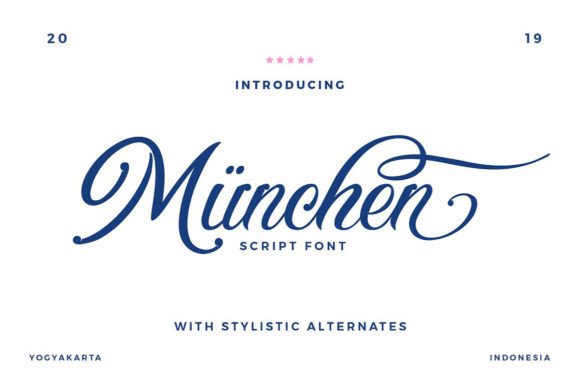
Journey into the world of elegance and sophistication with Munchen Font, the script font designed to captivate and inspire. Its delicate strokes and graceful lines create a timeless beauty that will elevate your designs to new heights.
Munchen Font is the perfect choice for creating display boards that demand attention. Its unique style adds a touch of luxury and exclusivity, ensuring your messages stand out from the crowd. Whether you're designing for a fashion brand, a high-end restaurant, or a special event, Munchen Font will add a touch of class and sophistication that will leave a lasting impression.
With its casual yet exquisite style, Munchen Font brings a light and airy feel to any design. Its smooth curves and thin strokes create a sense of movement and energy, making it perfect for adding a dynamic touch to your projects. Whether you're designing a website, a brochure, or a social media post, Munchen Font will add a touch of elegance that will set your work apart.
Munchen Font is also incredibly versatile, making it suitable for a wide range of design projects. Its timeless feel makes it perfect for projects that require a classic and sophisticated look, while its modern twist adds a touch of contemporary style. Whether you're designing a logo, a poster, or an invitation, Munchen Font will bring a touch of magic to your creations.